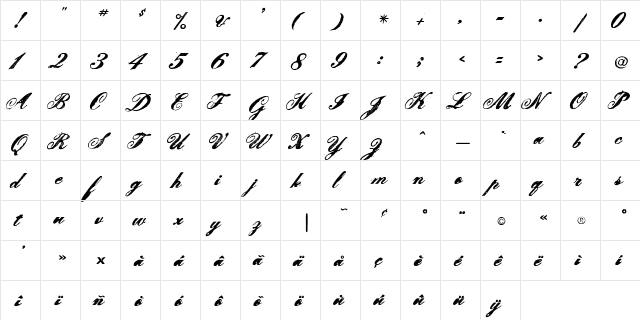
LeScript Bold
Design Context for LeScript Typeface
LeScript flows with the natural rhythm of handwritten lettering, making it ideal for designs that call for warmth and personal expression. Its bold stroke weight gives it real presence on the page.
Font Pairing: Combine LeScript with a simple geometric sans for maximum contrast — the tension between flowing curves and clean structure is a classic typographic pairing.
Pro Tip: Use LeScript for short runs of text — names, titles, or taglines. Extended body copy in script faces tires the eye quickly.